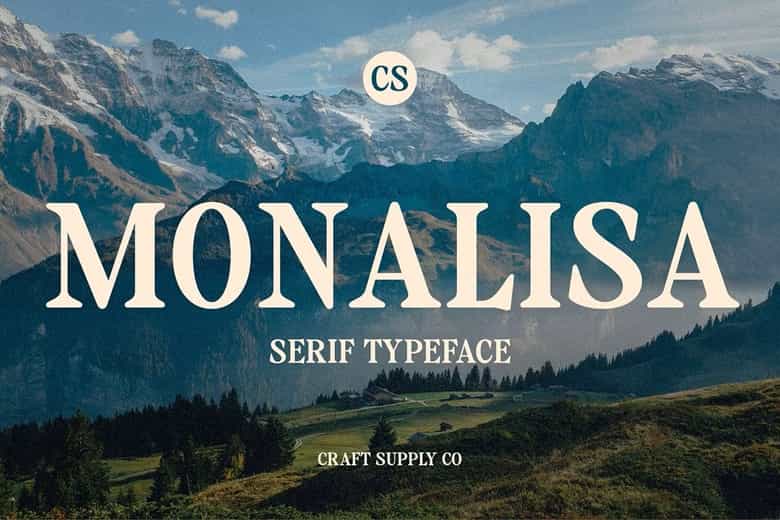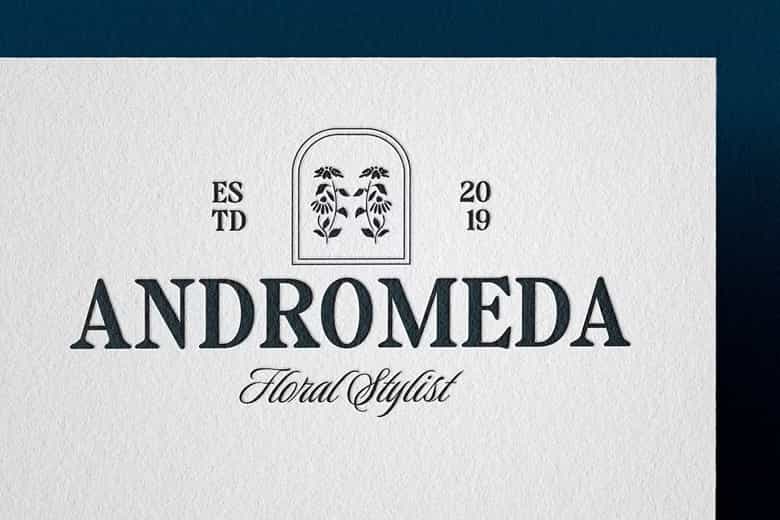
CS Monalisa is a serif typeface that offers elegant and soft feel even when in extreme display sizes. Its defining feature are the rounded terminals, will add warmth and approachability of sharp serif. This detail makes its font softer on the eyes, yet still restrained, which makes it a perfect choice for a great variety of high class and creative projects.